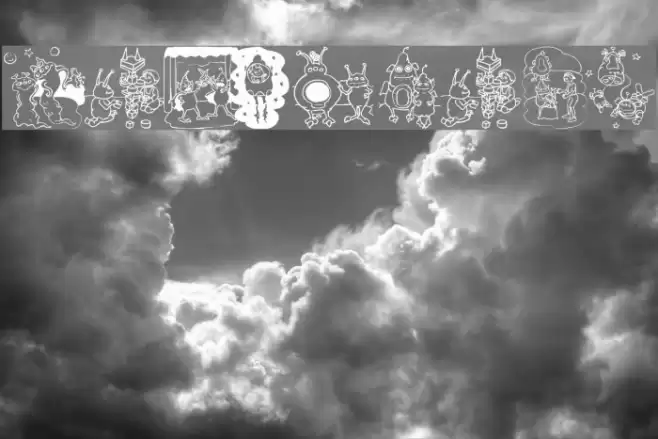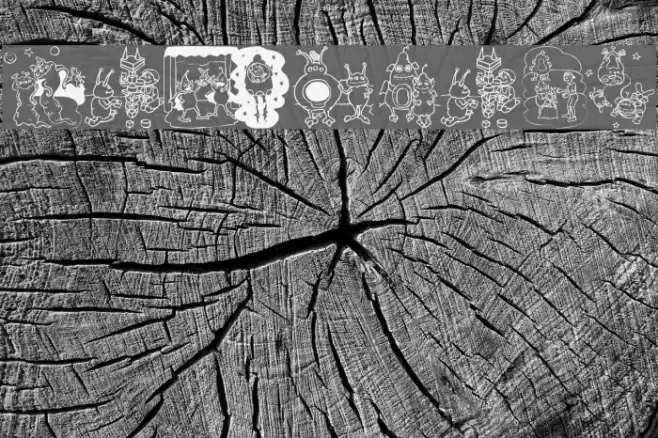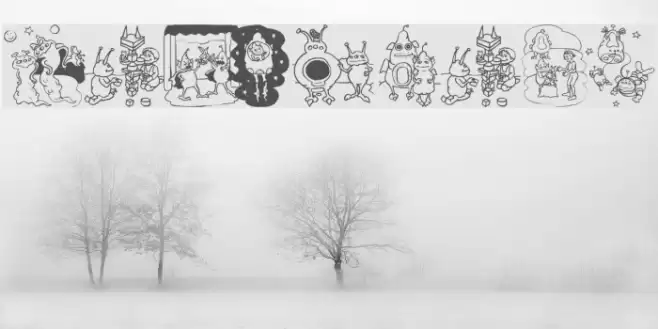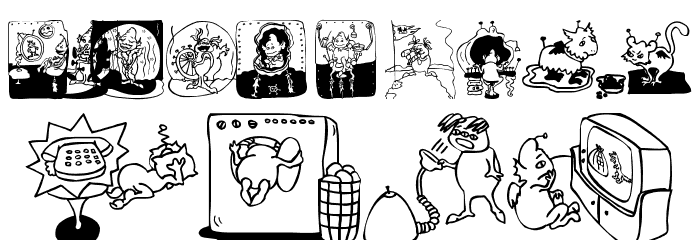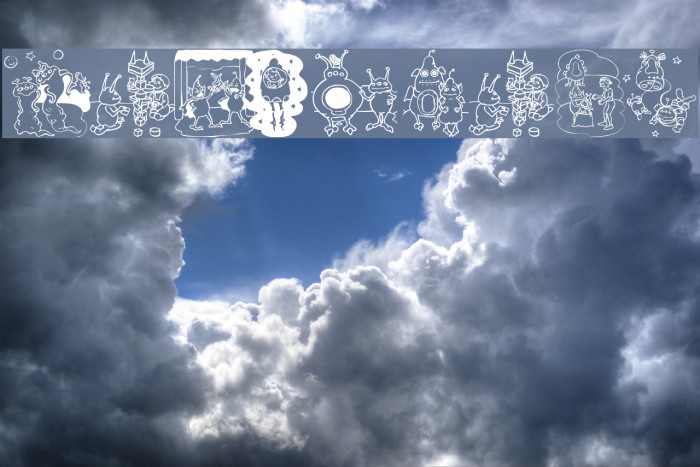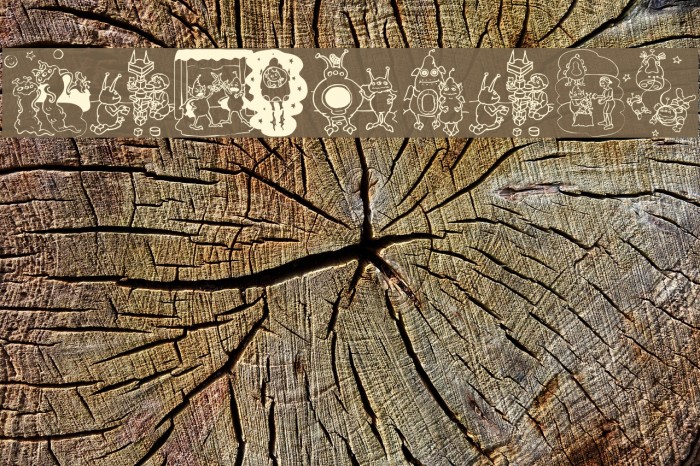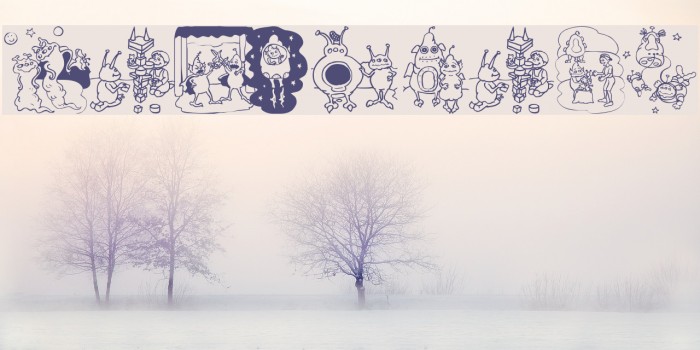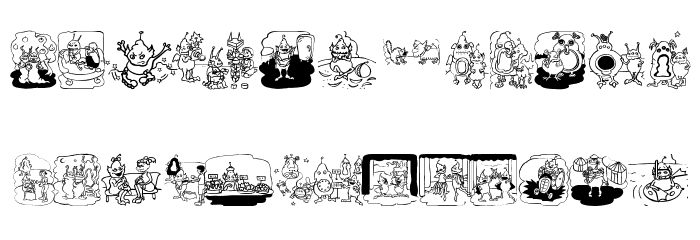
NewAliens Font
NewAliens Description
A highly decorative and whimsical dingbat font featuring playful, cartoon-style alien and sci-fi themed illustrations for each character, with intricate linework and imaginative scenes.
A quirky, cartoonish alien-themed dingbat font with detailed illustrations from Dingbats fonts.
- Proposed Projects: Children's books, party invitations, sci-fi themed posters, educational materials, comic strips, decorative borders.
- Overall Style: Decorative, Whimsical, Playful
- Use Case: Illustrative elements, icons, themed graphics, not for text.